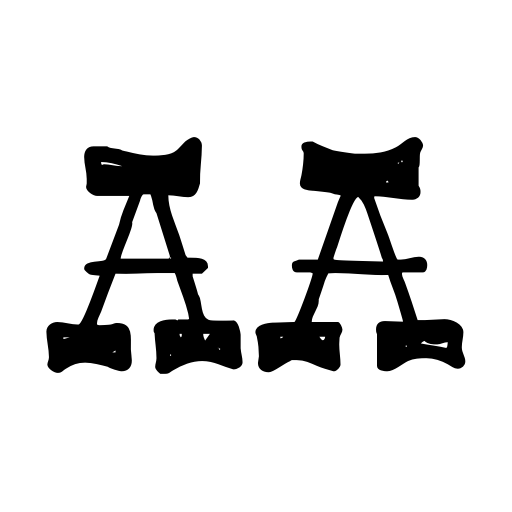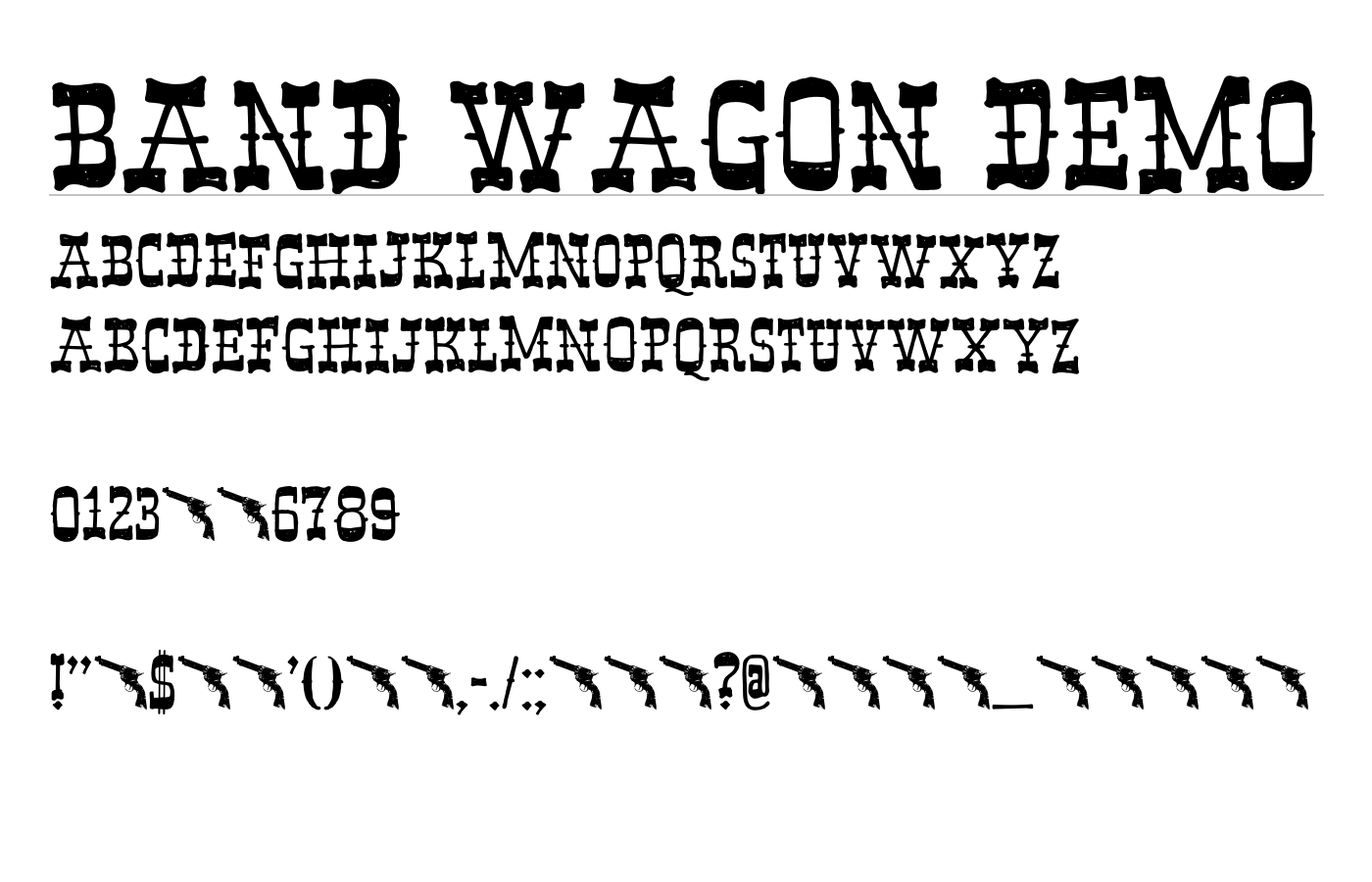
Band Wagon DEMO is a bold, decorative slab serif font with a strong vintage Western style, featuring thick, blocky serifs and slightly uneven, playful letterforms. Its high-contrast strokes and rugged texture give it a distinctive, rugged personality perfect for creating eye-catching headlines and themed designs, especially in posters, logos, and branding related to the Wild West or rustic aesthetics. This font’s unique charm and character make it ideal for projects seeking a bold, adventurous vibe with a touch of old-time flair.
Band Wagon DEMO Font
About Band Wagon DEMO Font